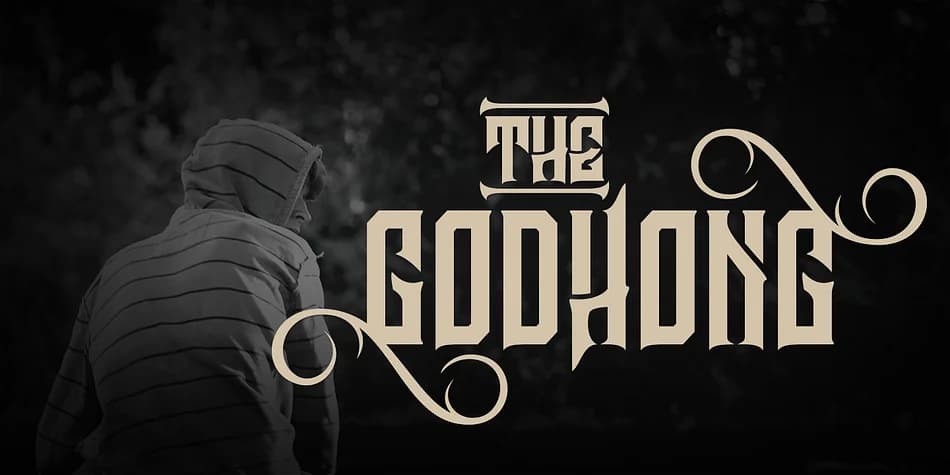
This typeface brings serious edge and dark drama to any design. Godhong, created by Tama Putra, takes the weight and authority of gothic letterforms and pushes them toward something darker and more rebellious. It's the kind of face you reach for when you want your type to command real attention and hold it, not just whisper in the background.
The character set runs deep: full uppercase and lowercase letterforms, international language support, multiple currency symbols, numerals, punctuation marks, and a collection of ten stylistic alternates that let you swap out individual glyphs for different visual effects and moods. This is where blackletter gets genuinely practical. Use this for vintage band poster designs, occult-themed product packaging, elaborate gothic wedding invitations, and heavy metal album artwork where the type carries as much weight as the content itself. The ligatures and extra glyphs give you the flexibility to craft something visually cohesive and distinctive across different design contexts and layouts.
- Ornate, Gothic
- Logos, Certificates
- medieval themes, band merch, and tattoo lettering
- a clean sans-serif for body text
Godhong Font is a blackletter font that shines as a display or heading face. Pair it with a clean serif or sans-serif font for body text β the contrast creates a clear hierarchy while the two styles stay balanced and easy to read.
Godhong Font
by Tama Putra